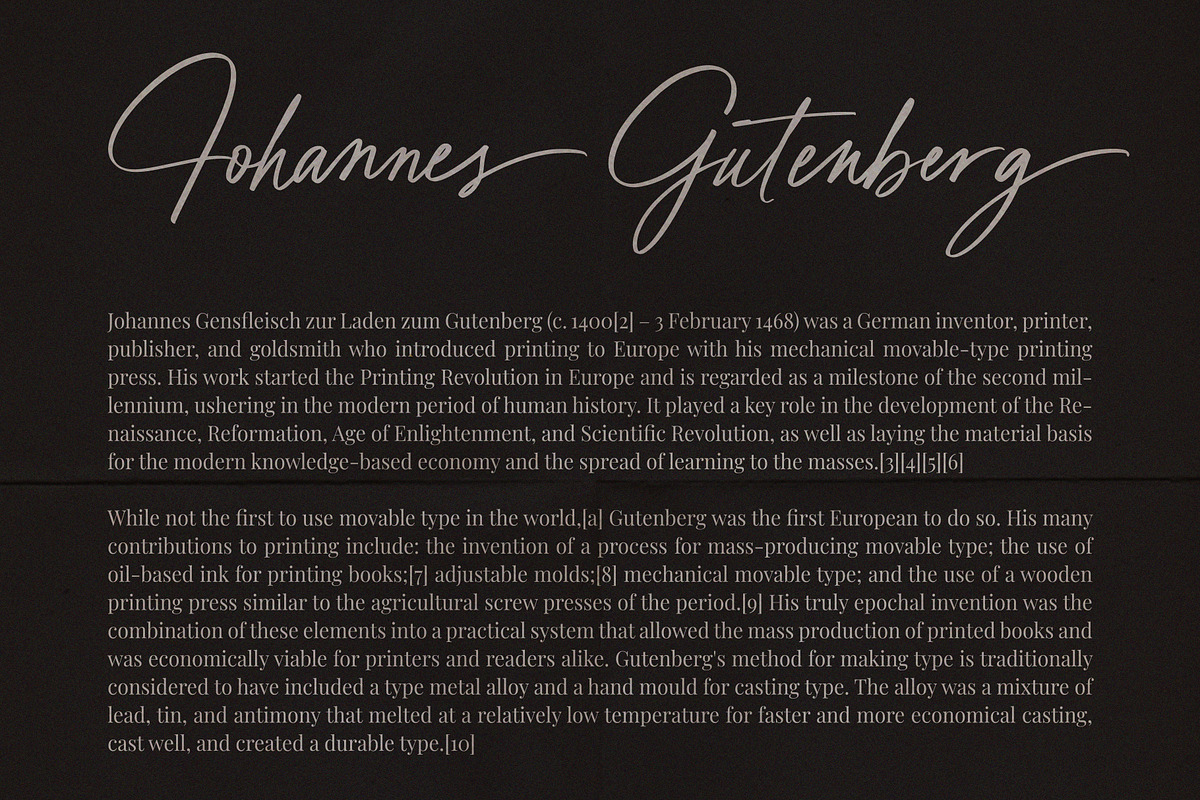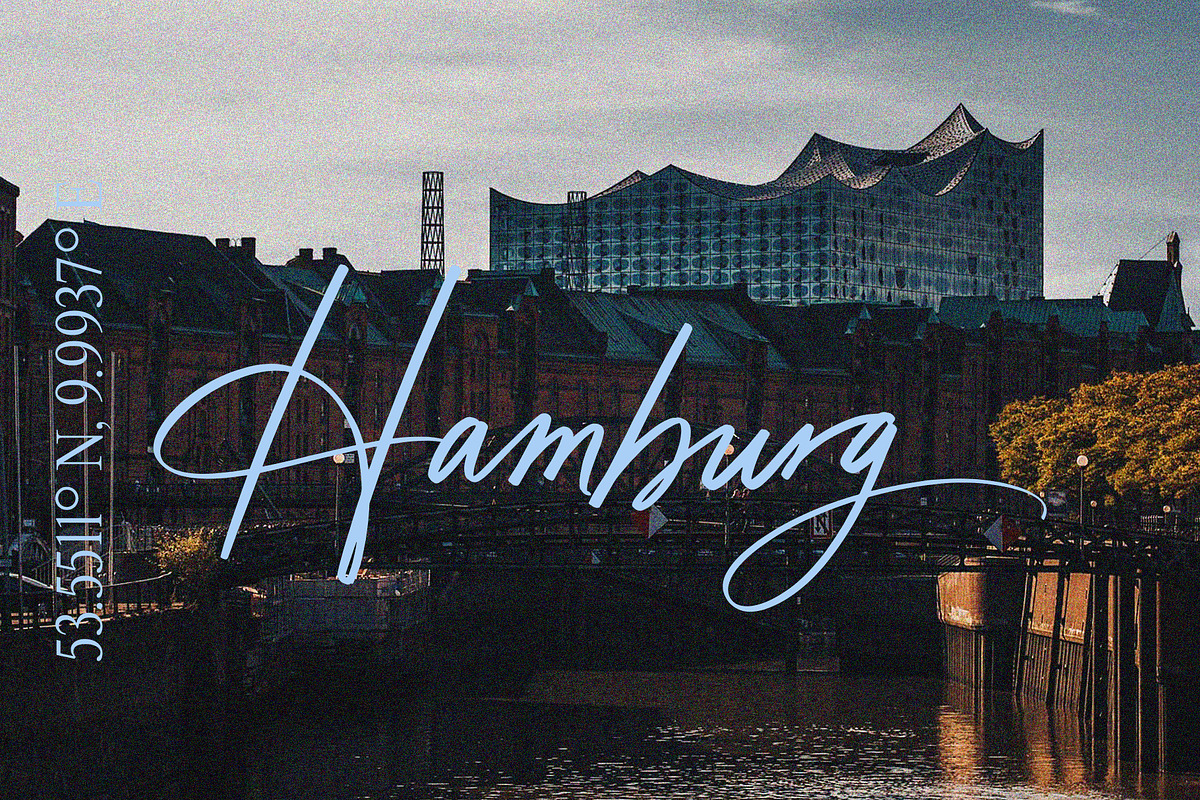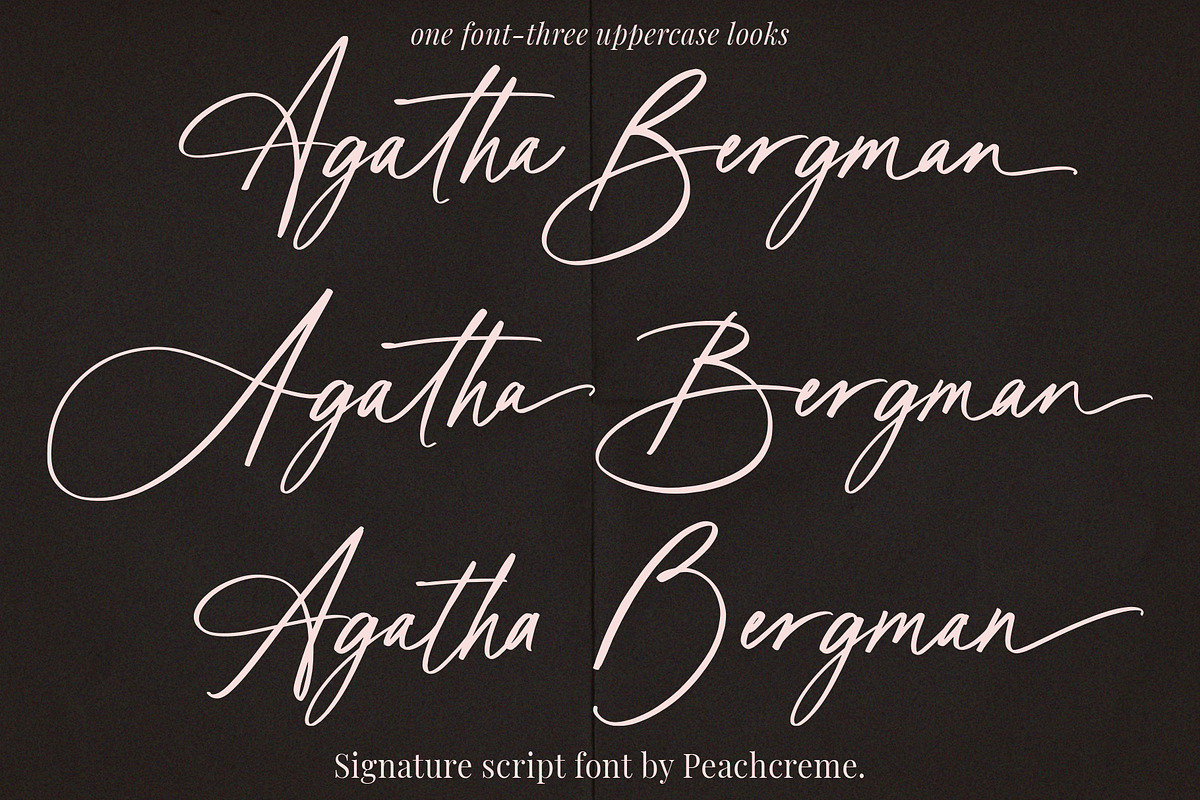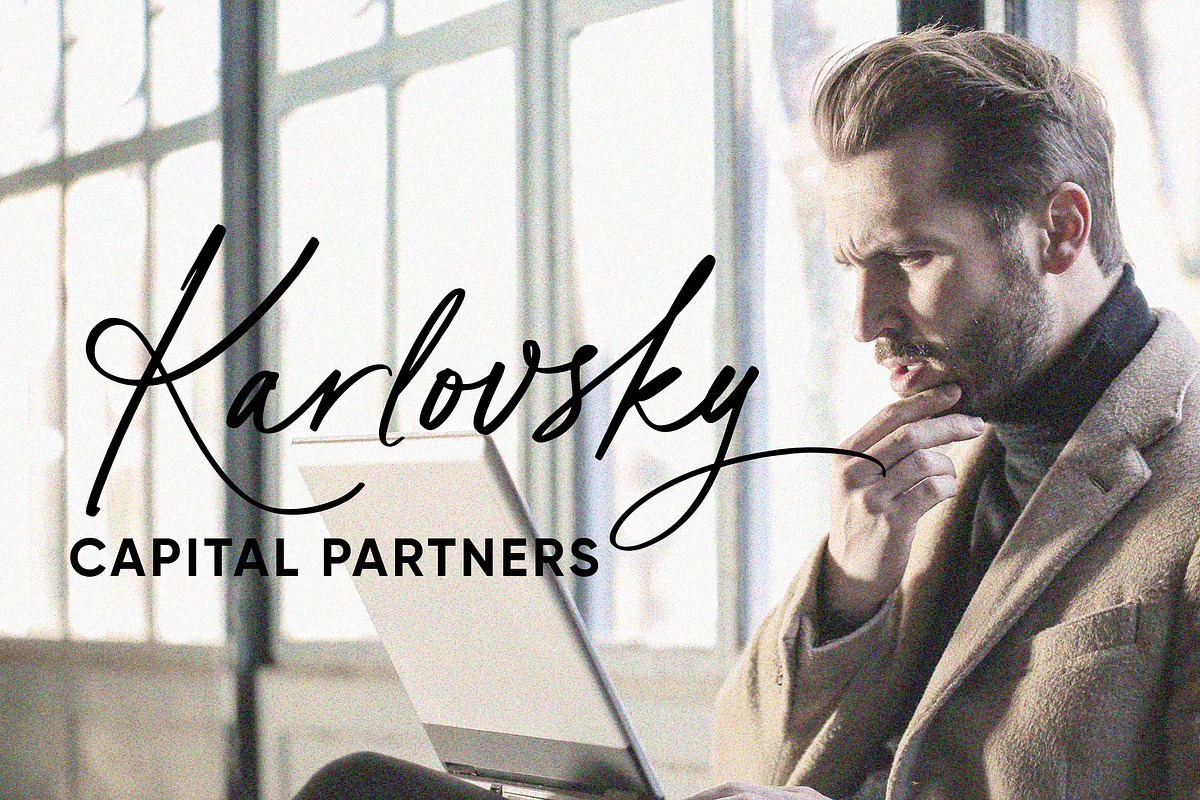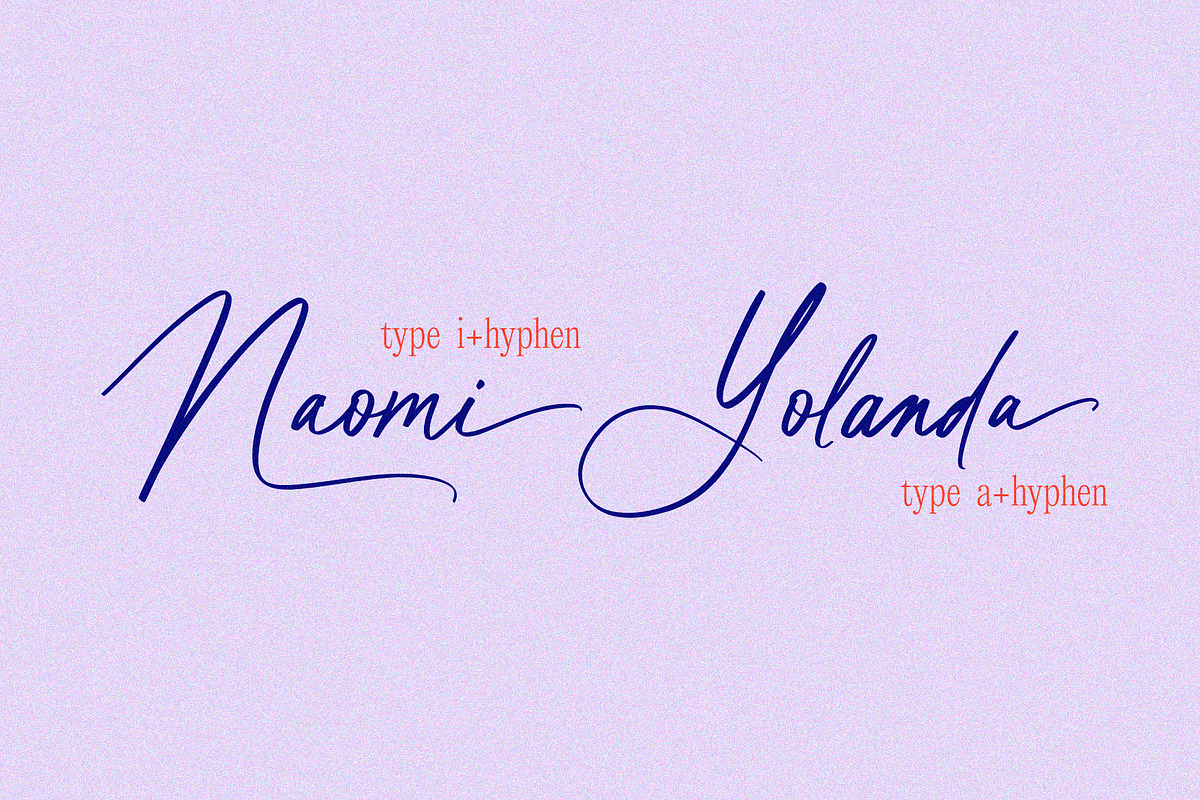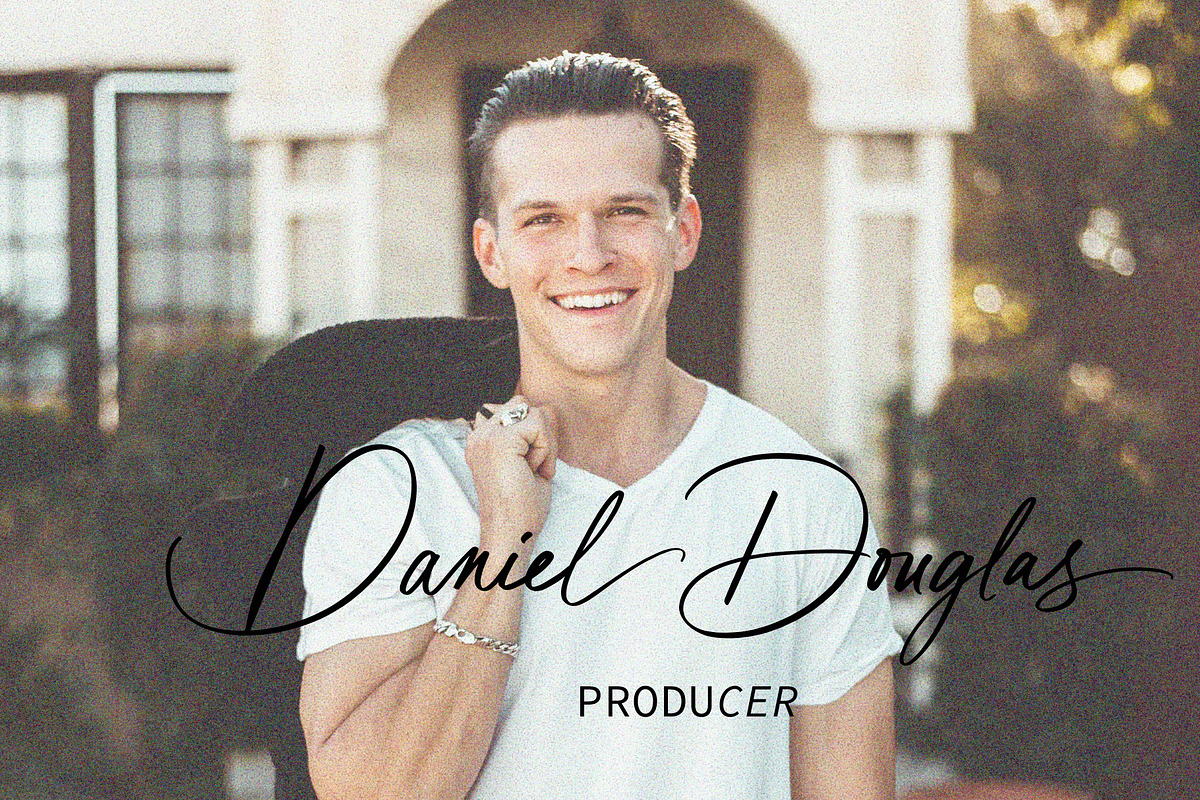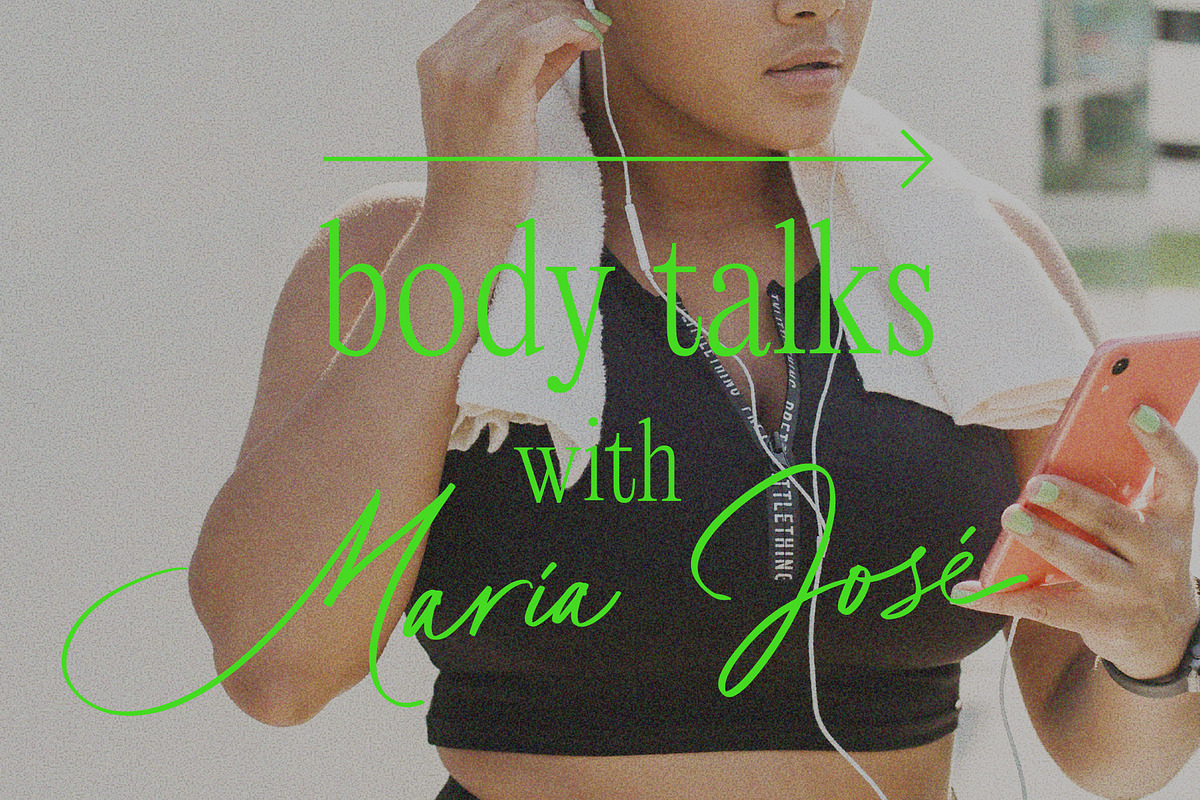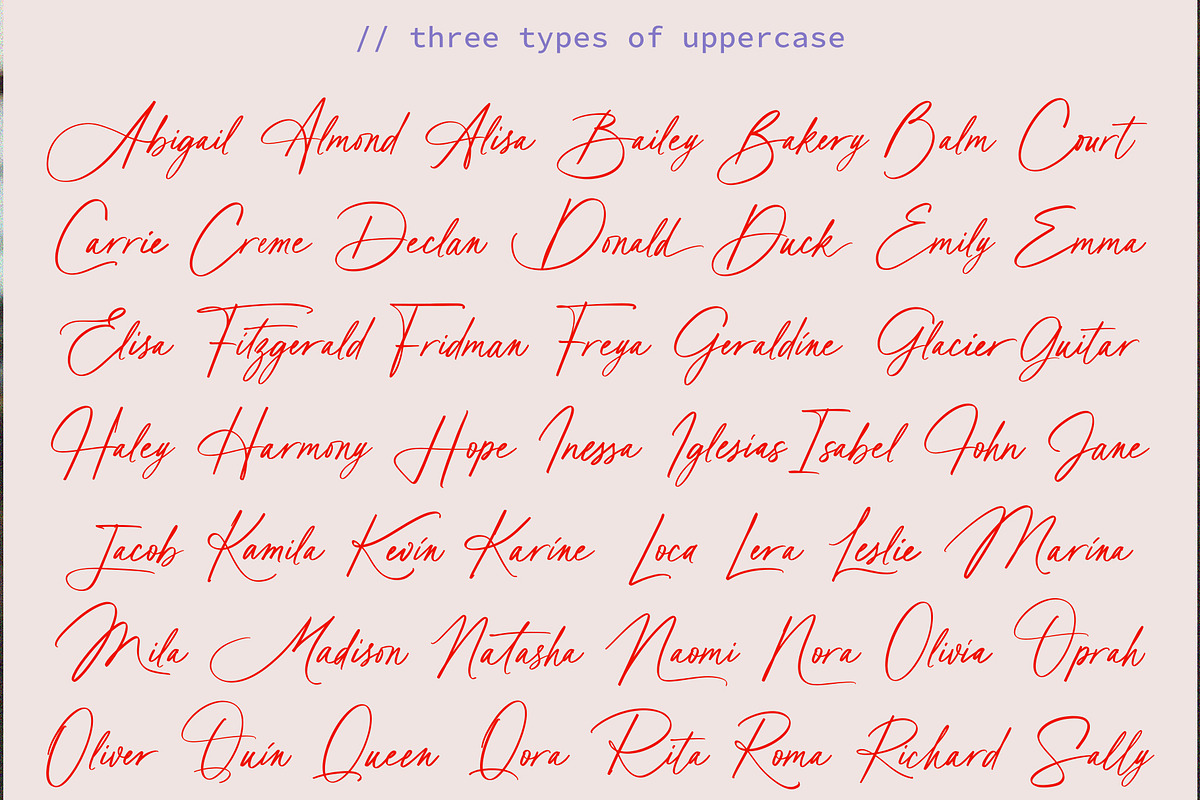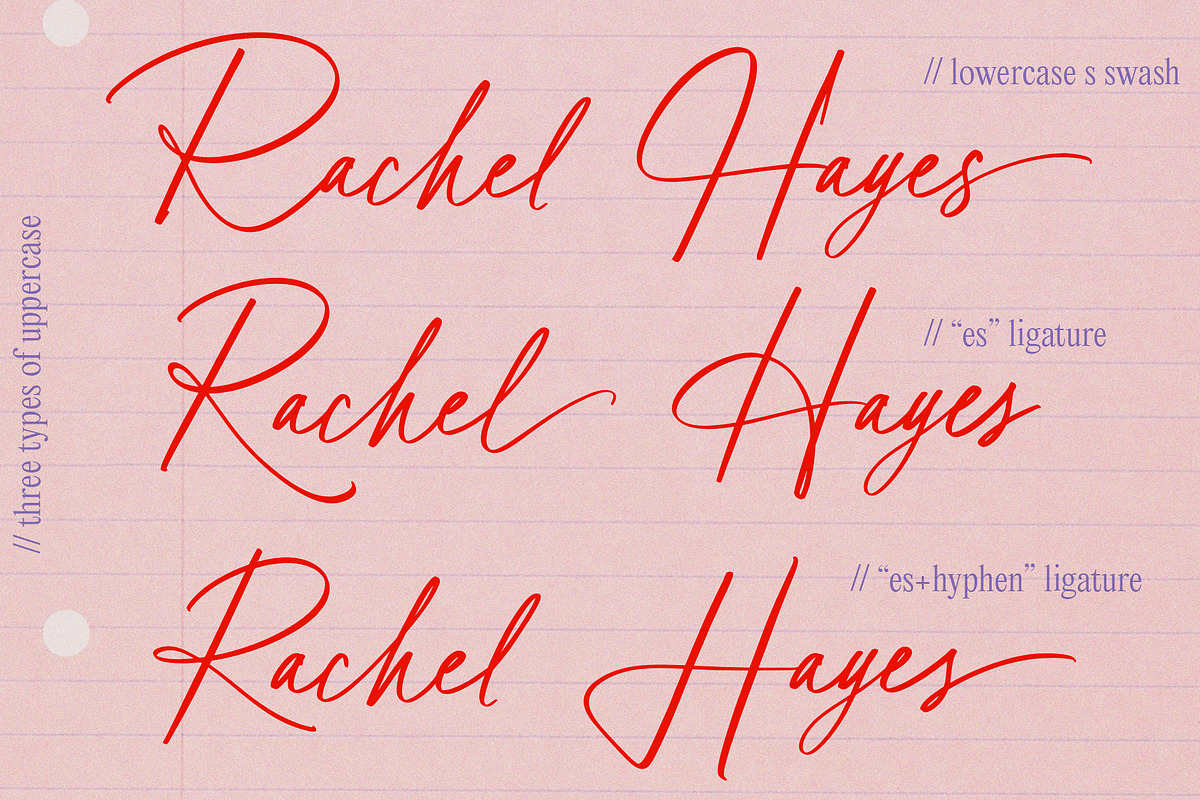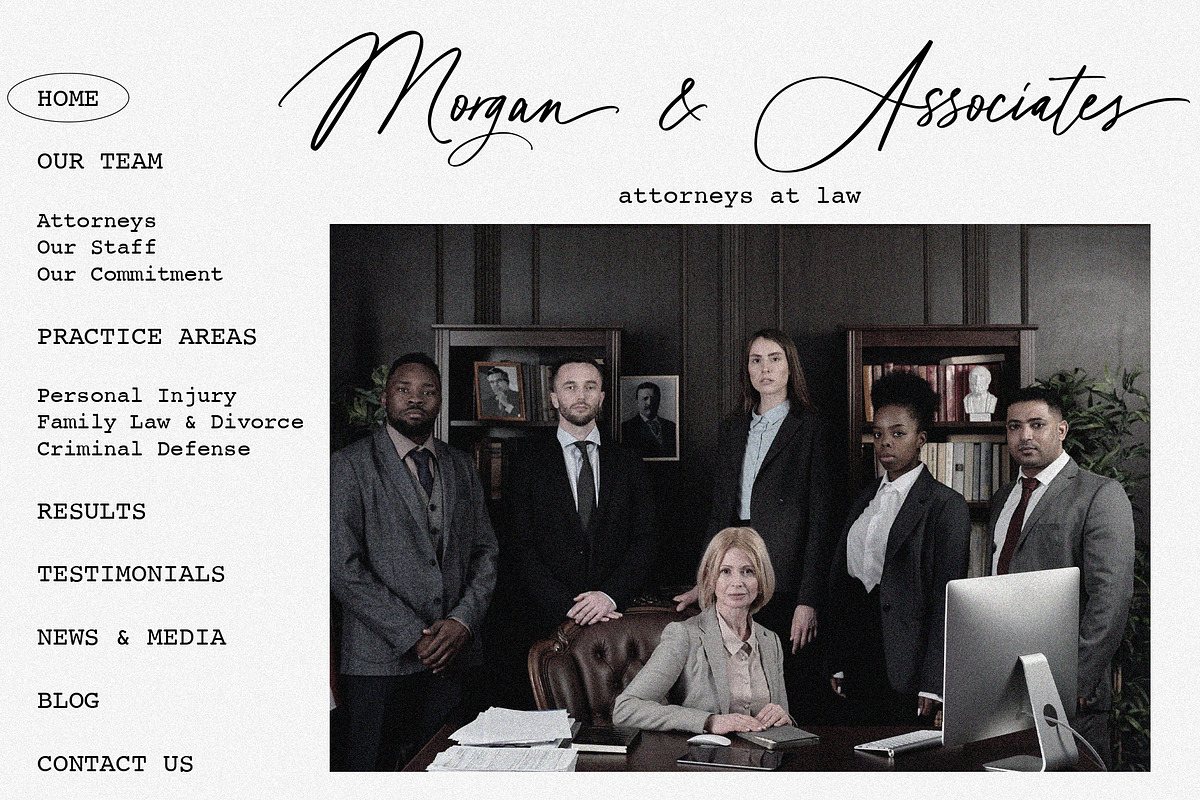
Agatha Bergman // Luxury Signature
Introducing our new modern signature font "Agatha Bergman". We would say that "Agatha Bergman" is a result of our latest experiment since a few new things have been done: "Agatha Bergman" is a voguish sophisticated signature-style script with three different uppercase alternatives for each letter and a unique short swash for each lowercase letter. We usually used to make long and wavy swashes, however, that's not the case this time. Also, the stylistic alternates were coded as both ligatures and swashes so that turning on the “Standard ligatures” was enough to access them. The font includes 152 fancy standard ligatures and 6 discretionary ligatures, and while working on them we tried to consider those letter combinations that are often met in surnames, e.g. -ovsky, on, ov.
In order to get the beautiful swashes, you simply need to type a hyphen just after your text. e.g. Kamila- West-
The font is mainly intended for signature-style projects, e.g. logos or texts with names & surnames, and may not be suitable for long texts or quotes.